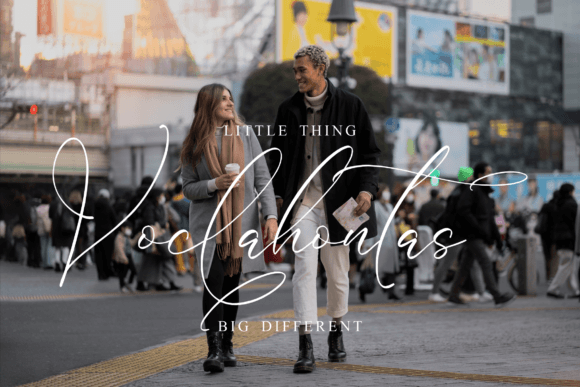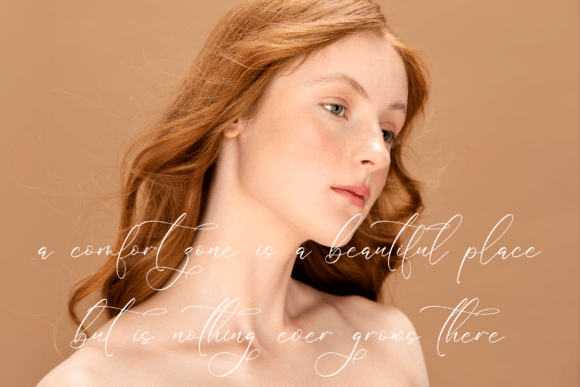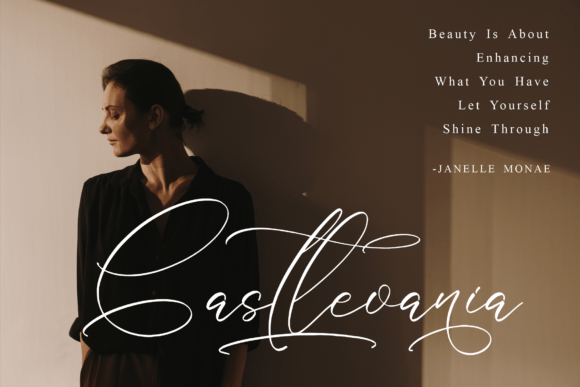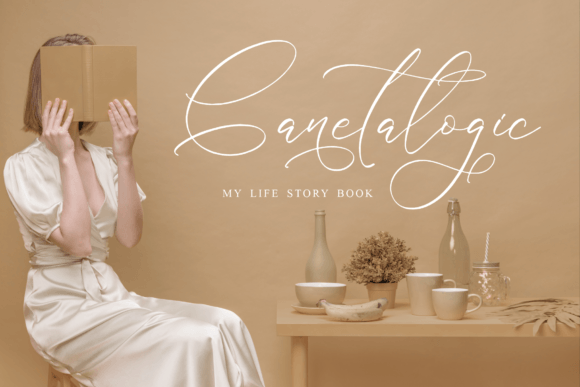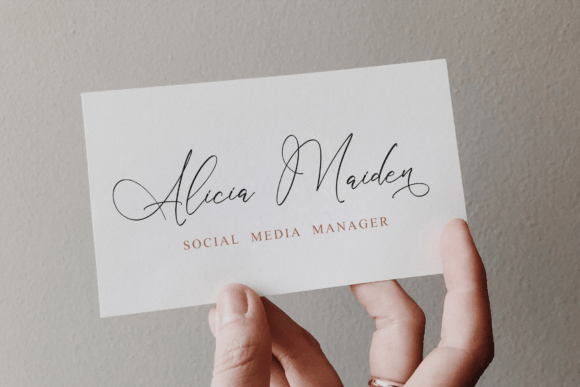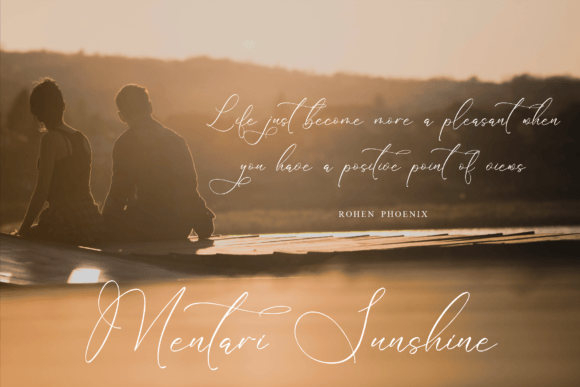
The Elusive Perfect Font: How Bolchanitas Voligate Stole My Heart
I still remember the design project that led me to Bolchanitas Voligate. I was working on a wedding invitation suite, and my client had a very specific vision: elegant, sophisticated, and with a clear handwritten touch. I spent hours scouring font libraries, but nothing seemed quite right. That was until I stumbled upon Bolchanitas Voligate.
It was love at first sight! The flowing script, the elegant swashes, and the perfect balance of sophistication and whimsy. I knew immediately that this was the font I had been searching for. In this article, I’ll share my experience with Bolchanitas Voligate, its features, and how to make the most of it in your designs.
An Honest Review of Bolchanitas Voligate
• ✨ Elegant and sophisticated design: Bolchanitas Voligate is perfect for designs that require a touch of luxury and refinement.
• ✅ Highly versatile: This font is suitable for a wide range of design projects, from wedding invitations to business cards, logos, and more.
• 💫 Beautiful swashes and ligatures: The font comes with a range of swashes and ligatures that add a touch of elegance to any design.
• 📝 Excellent for body text and headlines: Bolchanitas Voligate is clear and readable, making it perfect for both body text and headlines.
While Bolchanitas Voligate is an amazing font, there are a few things to keep in mind:
• 🤔 Some characters may require manual adjustment: As with any script font, some characters may need manual adjustment to ensure proper spacing and alignment.
• ⚠️ Not ideal for very small text sizes: While the font is clear and readable, it may not be the best choice for very small text sizes, as some details may get lost.
The Story Behind Bolchanitas Voligate
Bolchanitas Voligate was designed with the intention of creating a beautiful and elegant script font that would add a touch of luxury to any design. The designer aimed to create a font that would be perfect for wedding invitations, luxury branding, and other designs that require a touch of sophistication.
Q: What is Bolchanitas Voligate?
A: Bolchanitas Voligate is a stylish and elegant script font designed for use in a variety of design projects, from wedding invitations to business cards and logos.
Q: Is Bolchanitas Voligate suitable for body text?
A: Yes, Bolchanitas Voligate is clear and readable, making it suitable for body text. However, it may not be the best choice for very small text sizes.
Q: Does Bolchanitas Voligate come with OpenType features?
A: Yes, Bolchanitas Voligate comes with a range of OpenType features, including swashes, ligatures, and stylistic alternates.